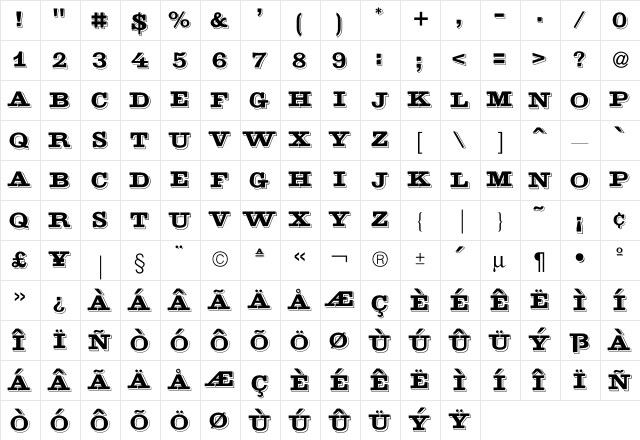
LHF Burbank Shadow Regular
| Foundry | John Studden for Letterhead Fonts |
Design Context for LHF Burbank Shadow Typeface
LHF Burbank Shadow brings ornamental detail and strong personality to headlines and identities, where visual impact matters more than quiet functionality.
Font Pairing: Pair with a clean neutral sans-serif for body copy to let LHF Burbank Shadow's character lead without overwhelming the composition.
Pro Tip: Use LHF Burbank Shadow exclusively at display sizes — it was designed to be seen, not read at length. Let a neutral companion handle body copy.